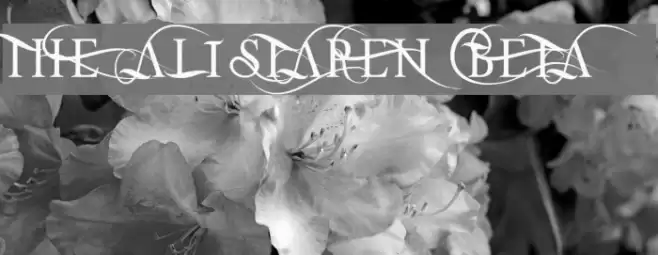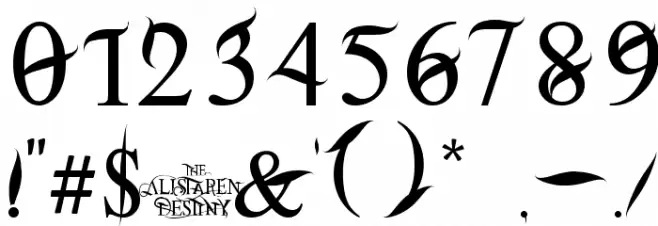
THE ALISTAREN BETA Font
THE ALISTAREN BETA Description
This font features a unique blend of decorative and classic serif elements, with intricate flourishes that add a touch of elegance and sophistication. The uppercase letters are adorned with elaborate swirls and extensions, making them ideal for eye-catching headlines or artistic projects. The lowercase letters maintain a more traditional serif appearance, providing a balanced contrast to the ornate capitals. Numbers and special characters are designed with similar attention to detail, ensuring consistency throughout. This font is perfect for projects that require a dramatic and artistic flair, such as invitations, posters, or branding materials. Its high contrast in stroke thickness enhances readability while maintaining its decorative appeal.
A decorative serif font with ornate uppercase letters and classic lowercase forms from Uncategorized fonts.
- Proposed Projects: Ideal for invitations, posters, branding, and artistic projects requiring an elegant touch.
- Use Case: Headlines, Logos, Artistic projects